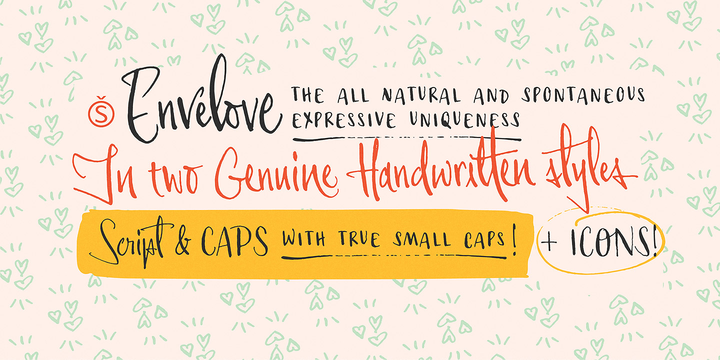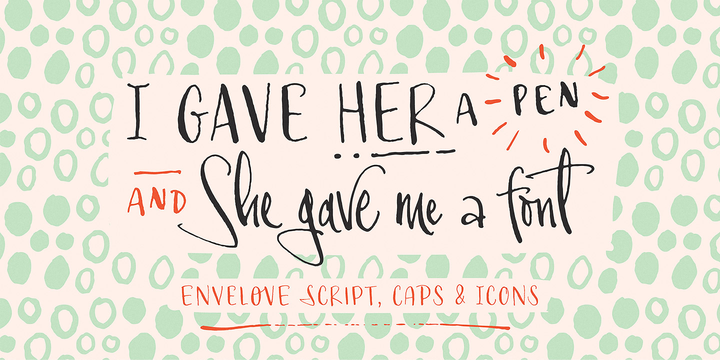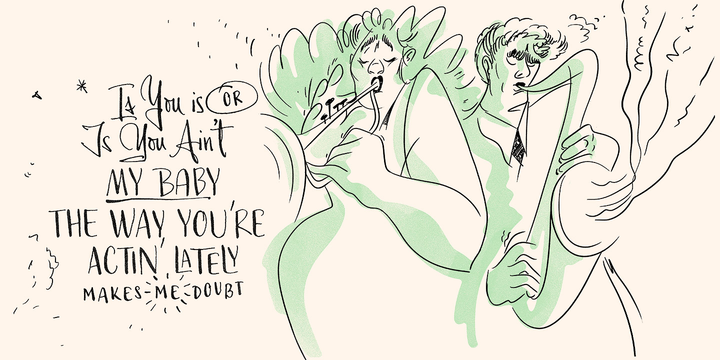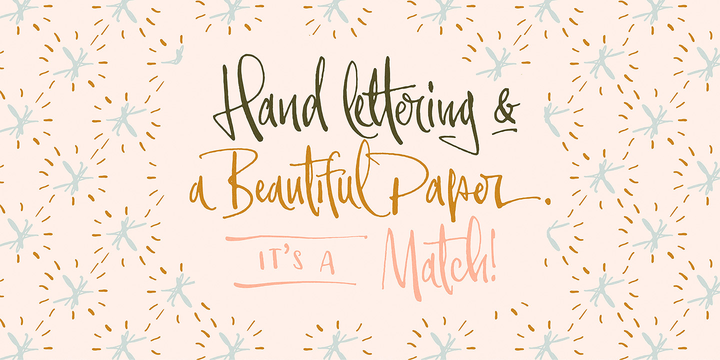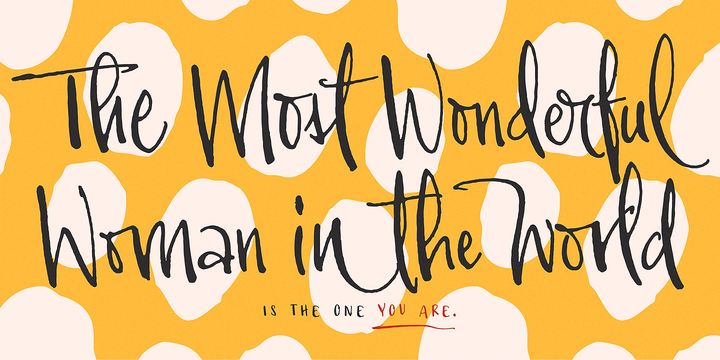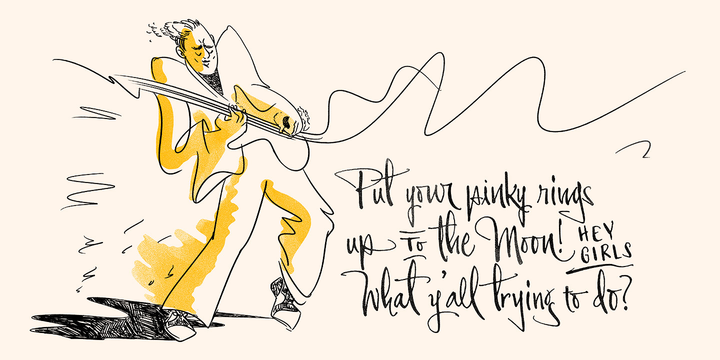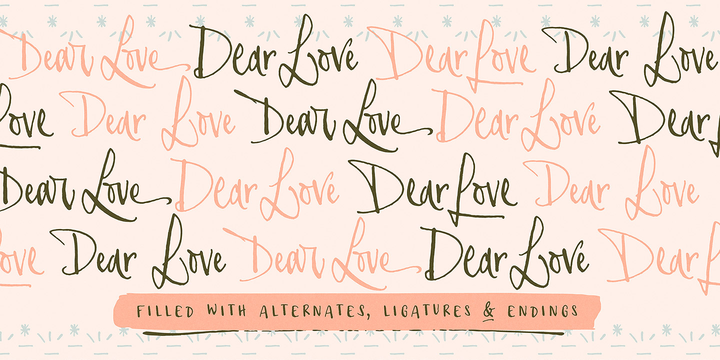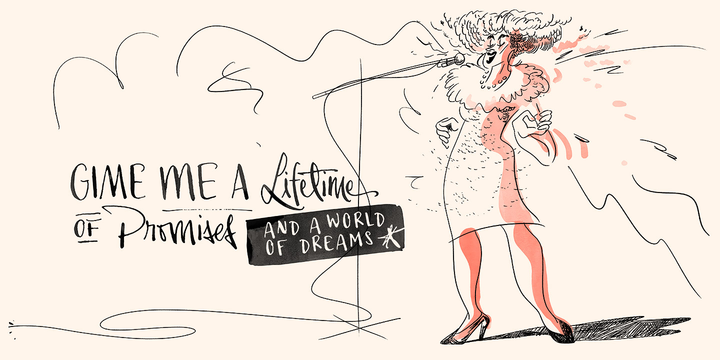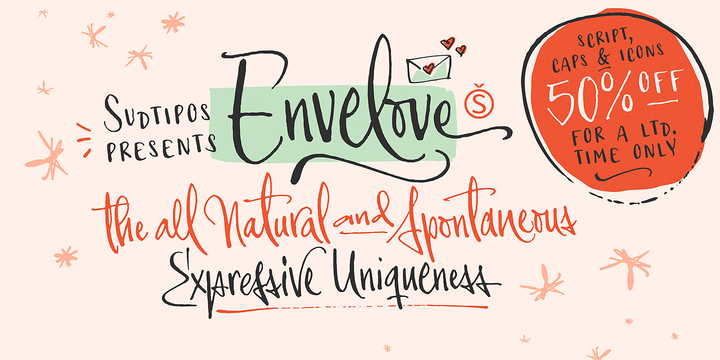
Envelove Font Family
«Envelove» is the brand new typographic challenge handwritten by Yani Arabena and designed along with Guille Vizzari and Ale Paul, for Sudtipos. It all started as a game for Yani. A carefree and spontaneous calligraphy, making use of the pointed nib with black ink, exploring its expressive possibilities pressing against paper. With time that nib turned into her dearest tool to flow through her writing, breeding this particular style of hers that let her trespass the barrier that kept personal and professional passions apart.